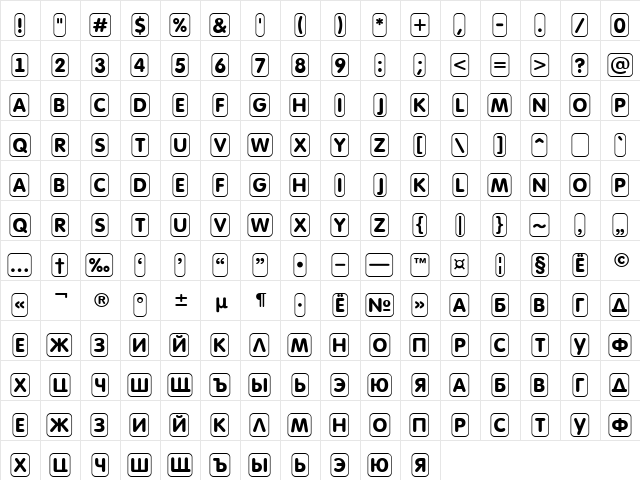
a_FuturaRoundTtlCmDFr Regular Font Preview
a_FuturaRoundTtlCmDFr Regular
Design Context for a_FuturaRoundTtlCmDFr Typeface
a_FuturaRoundTtlCmDFr has a distinctly futuristic character, with geometric precision and clean angles that feel at home in technology, gaming, and sci-fi contexts.